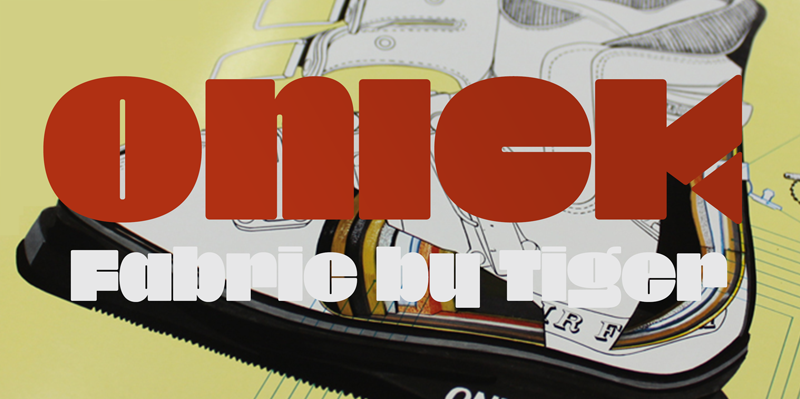
Onick Typeface
If you are looking for Strong letters with a ton of unique Ligatures and style to choose, Onick is the perfect fit. It’s a memorable, fashionable, strong and elegant typeface. You can mix and match the rounded and the Regular style to create something very fresh and modern.
This fonts is perfect for headlines, quotes, Logo, Web, magazine covers, editorial design, print posters, signage, window shop design, and much more.
Onick is a free font designed for Onitsuka Tiger.